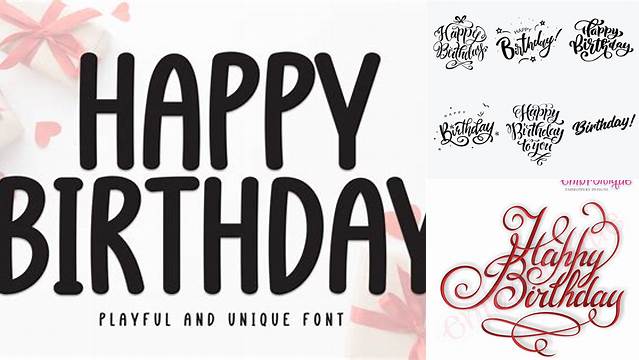
Happy Birthday Fonts: Generate & Copy Paste!
Hey everyone! Are you looking to jazz up your birthday greetings and make them extra special? You're in luck! This article is all about happy birthday fonts, specifically diving into the world of calligraphy fonts, how to generate them, and how easy it is to copy and paste them wherever you need. Whether you're creating birthday cards, social media posts, or even designing a website, the right font can make all the difference. So, let's get started and explore how you can use these awesome fonts to celebrate birthdays in style!
H2: The Magic of Happy Birthday Calligraphy Fonts
Alright, guys, let's talk about calligraphy fonts! They're not just fonts; they're a whole vibe. Happy birthday fonts in calligraphy style bring a touch of elegance, personality, and that handmade feel that just screams, 'I put some effort into this!' Think about it: a plain, standard font just doesn't have the same impact when you're wishing someone a happy birthday. Calligraphy fonts, on the other hand, have that beautiful flow, the varying line weights, and the unique flourishes that make your message stand out. They're like the couture of the font world. They add a level of sophistication and charm that can transform a simple 'Happy Birthday' into a work of art. The best thing about using these fonts is that they're incredibly versatile. You can use them for anything from a handwritten-style message on a digital card to creating a stunning header for a birthday banner. The possibilities are truly endless. And let's be honest, who doesn't love a font that looks like it was crafted with love and care? It's a simple way to show someone you care, and it makes the birthday message feel extra special. Plus, using a calligraphy font gives you that creative outlet, a chance to express yourself in a visually appealing way. So, whether you're a seasoned designer or someone who just wants to make a birthday message pop, calligraphy fonts are your secret weapon. They're easy to implement, visually stunning, and they bring that touch of magic to every birthday celebration. It’s time to elevate your birthday greetings and make them unforgettable!
H3: Why Calligraphy Fonts Are Perfect for Birthdays
So, why exactly are calligraphy fonts such a hit for birthdays? Well, it’s all about the message they convey. Happy birthday fonts in a calligraphy style instantly add a layer of personalization and warmth that regular fonts just can't match. Think about the feeling you get when you receive a handwritten birthday card versus a typed one. The handwritten card feels more intimate, more heartfelt, right? Calligraphy fonts mimic that feeling, bringing a sense of closeness to your digital creations. They exude creativity and elegance, making the birthday message feel like it was specially crafted for the recipient. The curves and strokes of calligraphy fonts have a natural, flowing rhythm that is pleasing to the eye. They're designed to draw attention and make your message memorable. Plus, they bring a touch of artistic flair. Using a calligraphy font demonstrates that you've put thought and effort into your message, showing the birthday person that you truly care. And, let's not forget, they're super trendy! Calligraphy fonts are popular across various platforms, from social media to custom invitations, making your birthday greetings on-trend and visually appealing. They bring that added visual interest to every birthday wish, making the message anything but ordinary. They're not just a font; they are a statement! They transform a basic birthday greeting into something special. The beauty of calligraphy fonts lies in their ability to express emotions in a visually striking way. It conveys a message of love, joy, and celebration, and it enhances the overall experience, making it unique. They’re versatile enough to match any style of birthday celebration, whether it’s a classic party or a modern virtual gathering. That’s why calligraphy fonts are perfect for making every birthday message memorable.
H2: Finding Your Perfect Happy Birthday Font
Alright, let's dive into how to find the perfect happy birthday font for your needs! This is where the fun begins – exploring different styles and finding the font that matches the birthday person's personality or the vibe of the celebration. The first thing to consider is the style. There are countless calligraphy fonts out there, ranging from elegant and traditional to modern and playful. Do you want something that looks like it was written with a delicate pen, or something with bold, dramatic strokes? Consider the overall feel you want to achieve. For a classic, sophisticated look, opt for a traditional calligraphy font with graceful curves and flourishes. For something more modern and fun, look for fonts with a more casual feel, like those that resemble brush lettering. Another crucial aspect is readability. While beautiful, some calligraphy fonts can be difficult to read, especially in small sizes. Ensure that the font is easy to read, so your birthday message is clear and easily understood. Don't be afraid to experiment with different fonts and see how they look. Try typing out a sample 'Happy Birthday' in several fonts to see which one you like the best. Consider the context. Where will you be using the font? Is it for a digital card, a social media post, or a printed invitation? The context can influence the font choice. Lastly, think about the recipient's preferences. What kind of style does the birthday person like? Choosing a font that resonates with their personality will make your birthday message even more special. Finding your perfect font is a delightful adventure. It is about matching the message with the moment.
H3: Exploring Different Calligraphy Font Styles
Let's take a closer look at the wonderful world of calligraphy font styles for happy birthday fonts! There's an incredible range to choose from, so you're sure to find something that clicks. First, we have the classic, elegant styles. These fonts often feature graceful curves, delicate strokes, and sophisticated flourishes. They are perfect for creating a timeless and refined birthday greeting. Think of fonts that mimic traditional handwriting, ideal for formal occasions and messages that want to radiate a touch of luxury. Next, we have the modern and playful styles. These fonts offer a more contemporary and relaxed feel. They might feature bolder strokes, less formal lettering, and a touch of whimsy. These fonts are great for birthday celebrations that embrace a fun, youthful vibe. They are the perfect choice for a trendy, Instagram-worthy greeting. Then, there are the brush lettering styles. These fonts mimic the look of hand-lettered brushstrokes, offering a creative and artistic touch. These are ideal for adding a personal, handmade feel to your birthday messages, giving them that extra layer of artistic flair. Consider the vintage and retro styles. These fonts evoke nostalgia and a sense of history, reminiscent of old-fashioned birthday cards. They’re perfect for anyone who appreciates a touch of vintage charm and uniqueness. Don't forget the bold and dramatic styles. These fonts make a statement with their thick strokes and eye-catching designs, ideal for creating a striking birthday message. So, explore these font styles and discover the perfect one for your needs. Each style has its own unique personality, so consider how it fits the tone and style of your birthday celebration.
H2: The Best Happy Birthday Calligraphy Font Generators
Alright, where do you actually get these amazing happy birthday fonts? That's where font generators come in handy. These tools make it super easy to create your own custom text in a variety of calligraphy styles, and then copy and paste them wherever you want! There are tons of online font generators that are free and easy to use. Just type in your birthday message, choose a font, and the generator does the rest. These tools are a game changer because they eliminate the need to download individual fonts and often offer a wide range of styles to choose from. Many font generators offer a variety of customization options, such as the ability to adjust the size, spacing, and even the color of your text. This lets you tailor the text to match the specific needs of your birthday greeting. The best part? The copy-and-paste functionality. Once you’re happy with how the generated text looks, you can simply copy it and paste it into your birthday card, social media post, or any other project. It is as easy as it sounds. You don’t need any special software, just an internet connection and a few minutes of your time. These tools make creating beautiful birthday messages a breeze. They are ideal for both beginners and experienced designers. Font generators offer a quick, easy way to add some pizzazz to your birthday greetings! It’s a one-stop-shop for creating stunning birthday messages, from the style to the presentation.
H3: Top Online Font Generators for Calligraphy
Let's round up some of the top online font generators where you can create the perfect happy birthday fonts! There are a bunch of great options out there, so you're sure to find one that suits your needs. One popular choice is 'Font Generator'. This tool offers a wide selection of calligraphy fonts and styles, making it easy to customize your text and see what it will look like in real time. It typically has a simple, user-friendly interface, making it ideal for beginners. Another fantastic option is 'Cool Font Generator'. This site provides a range of fonts, including a good selection of calligraphy styles. It also offers options to customize the size and style of your text. It's perfect for those who want a bit more control over their text. 'Stylish Text Generator' is a great choice, especially if you want to add some flair to your text. It offers a range of fancy text styles, including many calligraphy-inspired options. It's perfect if you want to make your birthday message stand out. Most of these generators let you preview your text instantly, so you can experiment with different fonts until you find the perfect fit. They also usually allow you to copy and paste the generated text directly into your birthday card, social media post, or any other project. Be sure to try out different generators to find the one you like the best. The best ones will give you plenty of options and make the process of creating your birthday greetings super easy and fun. With these font generators, creating beautiful, customized birthday messages has never been easier.
H2: Copy and Paste: Your Simple Guide
Alright, let's get down to the nitty-gritty: the copy and paste part! It's so simple, guys. Once you've generated your amazing happy birthday fonts using a font generator, the next step is to copy and paste them where you need them. Here's how it usually works. After generating your text, most font generators will have a 'copy' button right next to the generated text. Click that button, and the text is automatically copied to your clipboard. Then, go to where you want to use the font, such as your birthday card, social media post, or email. Position your cursor where you want the text to appear, and then paste the text. You can typically paste by right-clicking and selecting 'Paste' or by using keyboard shortcuts like Ctrl+V (Windows) or Cmd+V (Mac). And that's it! Your beautiful calligraphy text is now in place. Make sure the text you copy is in a supported format for where you're pasting it. Most platforms and programs support the characters of these fonts, but always double-check to make sure everything displays correctly. It's a quick, easy, and efficient way to transform your birthday messages into stunning works of art. Copy-and-paste is the secret ingredient to making your birthday greetings shine. It’s as simple as it sounds, so get ready to spread some joy with your newly acquired calligraphy skills!
H3: Troubleshooting Copy and Paste Issues
Even though it's a simple process, you might run into a few bumps along the way when you're using the copy-and-paste function for your happy birthday fonts. Let's tackle some common issues and how to fix them. First, make sure the platform or application you are pasting into supports the font style you are using. Some social media platforms or programs may not fully support all the special characters or formatting of certain calligraphy fonts. If you're having trouble, try using a simpler font style or converting the text into an image file to ensure it displays correctly. Second, if your text appears as a series of boxes or question marks, it often means the font is not supported. You may need to use a different font or convert the text to an image format. Third, sometimes, the formatting of your pasted text might get lost. To keep the formatting, try pasting the text as plain text, and then reapply the formatting within the application. Another potential issue is unintended characters or symbols appearing in your text. This could be due to encoding issues. Make sure both the generator and the platform where you’re pasting use the same encoding (usually UTF-8). If issues persist, try clearing your clipboard before copying and pasting again. The most important thing is to take a step back and troubleshoot. Try different fonts or platforms. Often, a simple adjustment can fix the problem. It ensures the fonts display correctly and your message is conveyed as intended. With a little troubleshooting, your calligraphy greetings will look amazing, no matter where you're sharing them.
H2: Using Fonts on Social Media
H2: Happy Birthday Font Copy and Paste Guide
Alright, let's get you set with a super simple happy birthday font copy-and-paste guide! This is the simplest way to get those beautiful fonts into your birthday messages. First things first, generate your text using a font generator. These tools do all the work for you by creating the calligraphy font. Once your text is generated, the generator will provide a